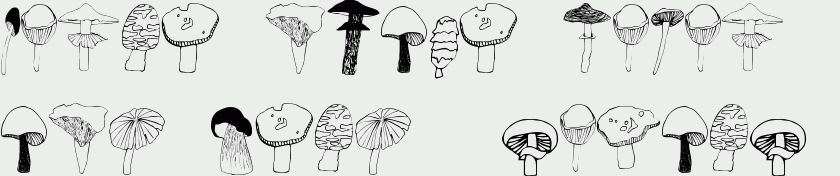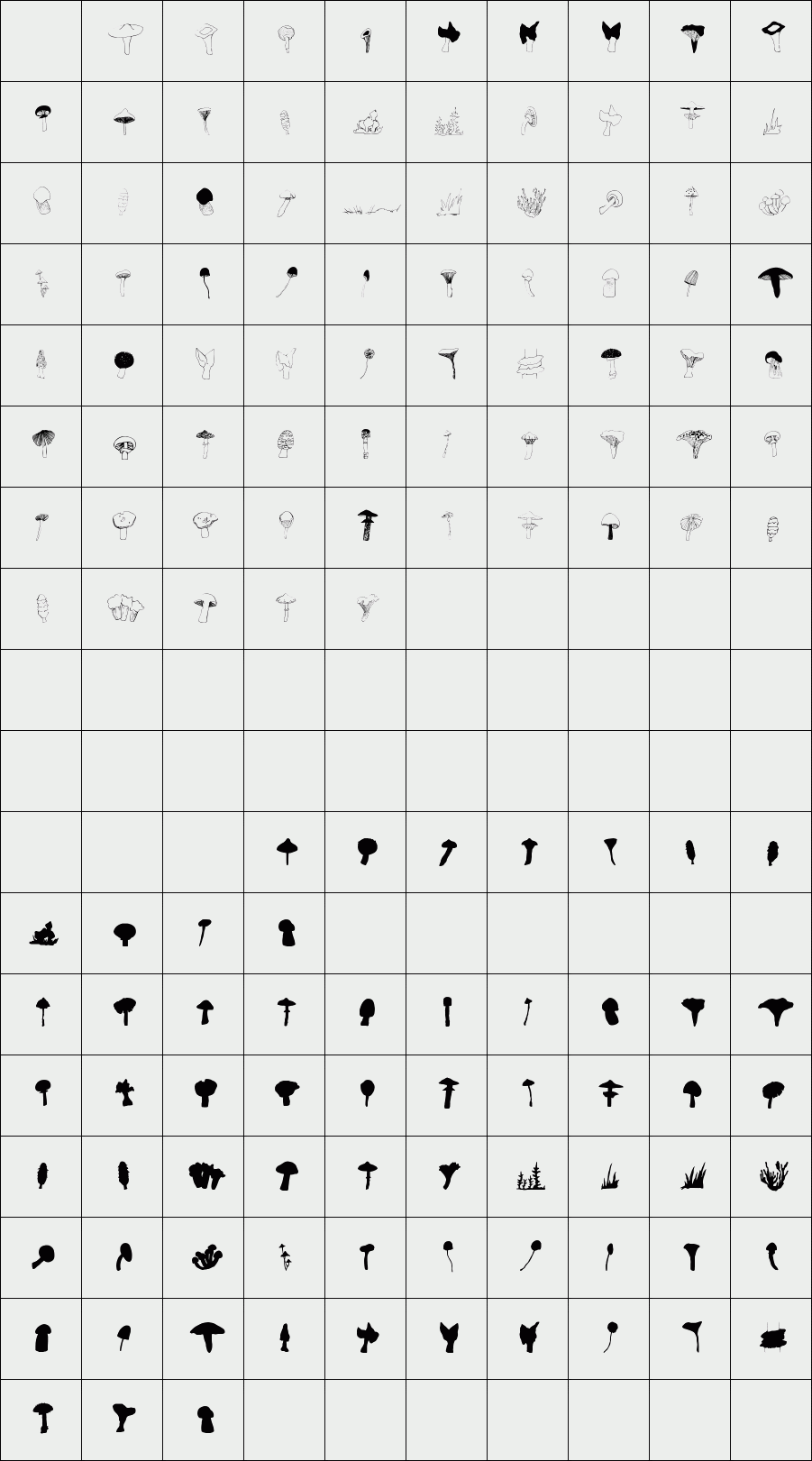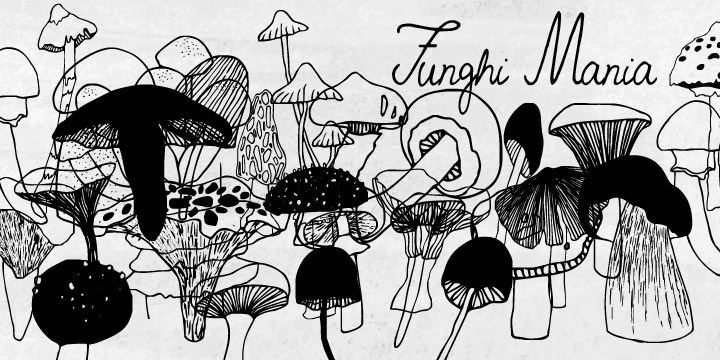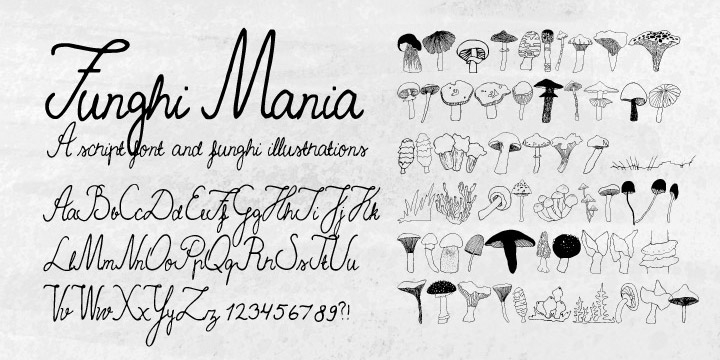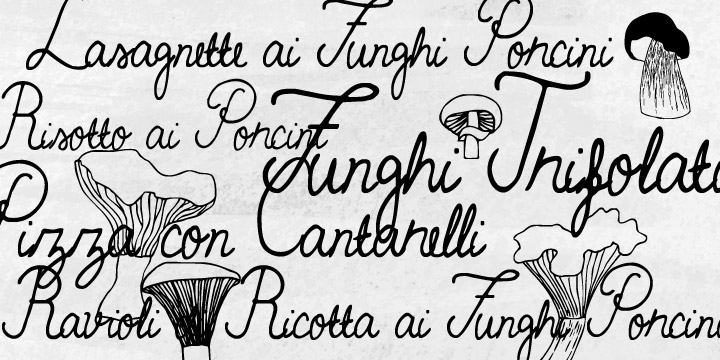
Funghi Mania
/ Funghi Mania Illustrations
Funghi Mania is a handwritten script font that comes along with over 60 decorative hand drawn funghi illustrations.
Treasures from Finnish forest!